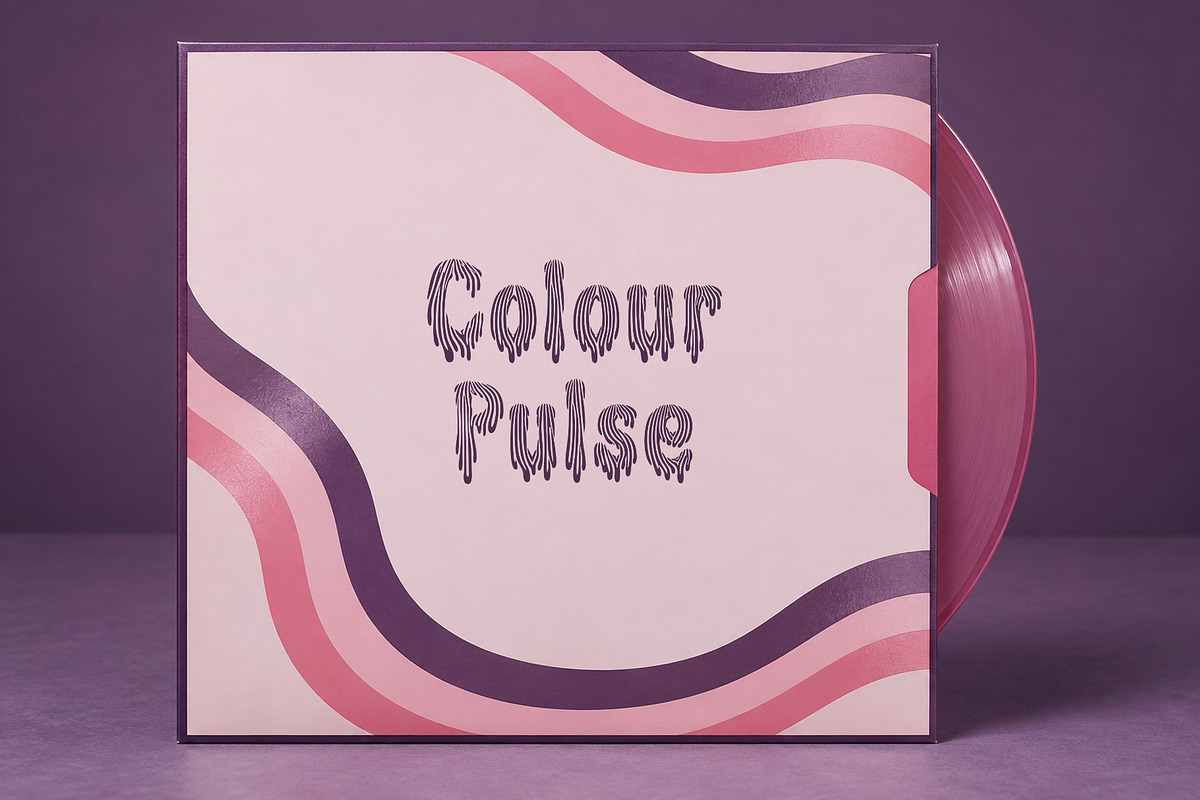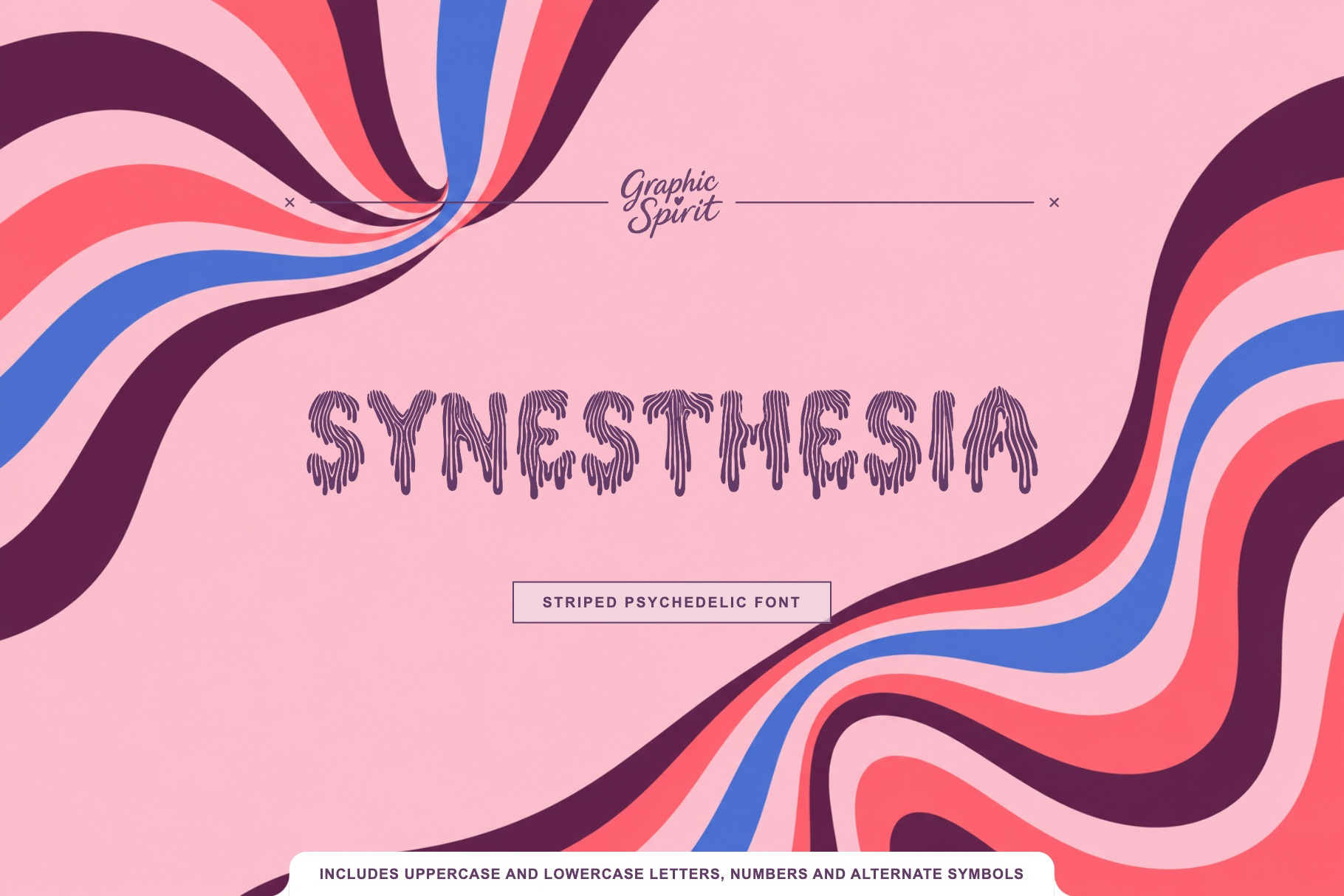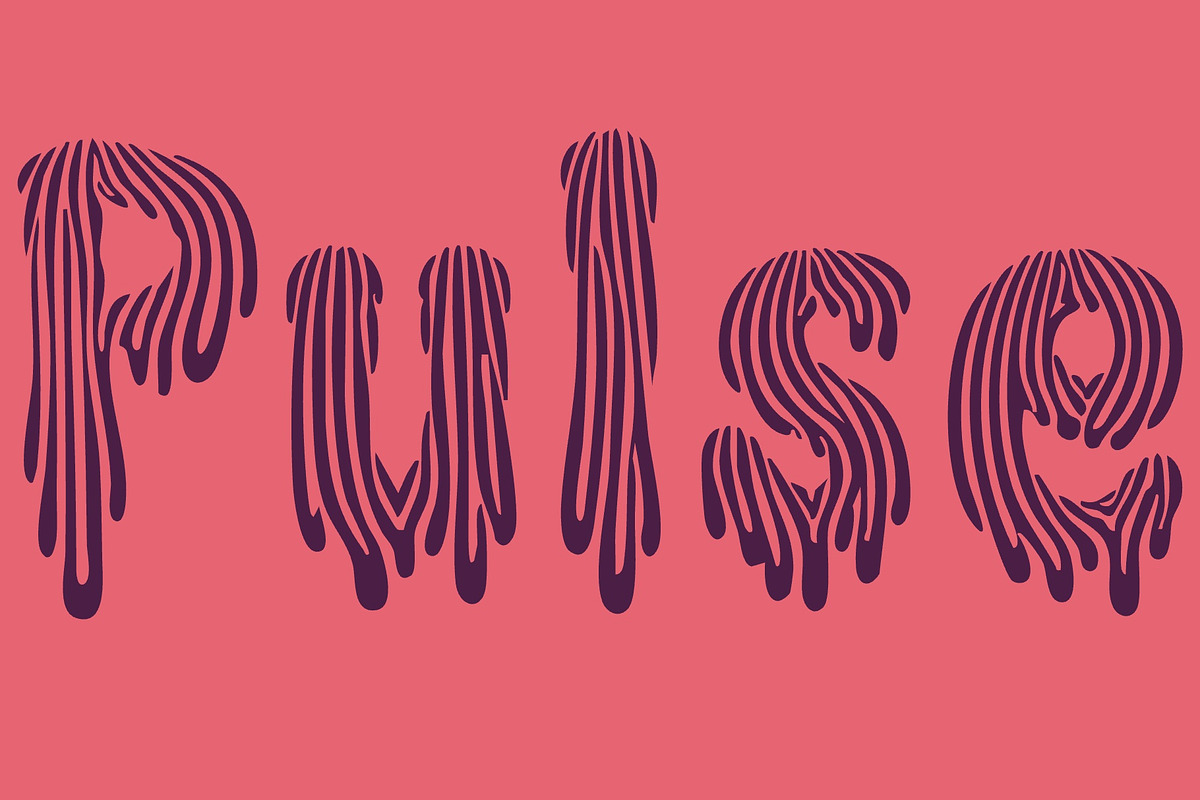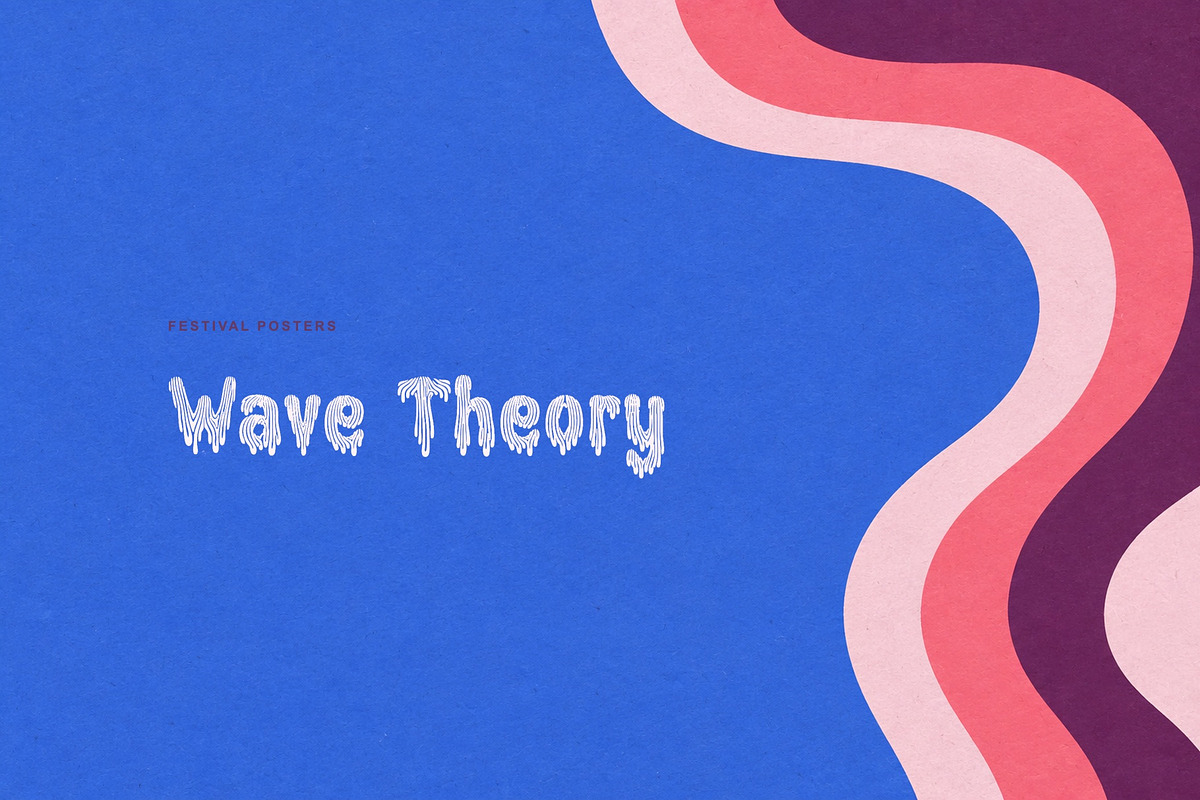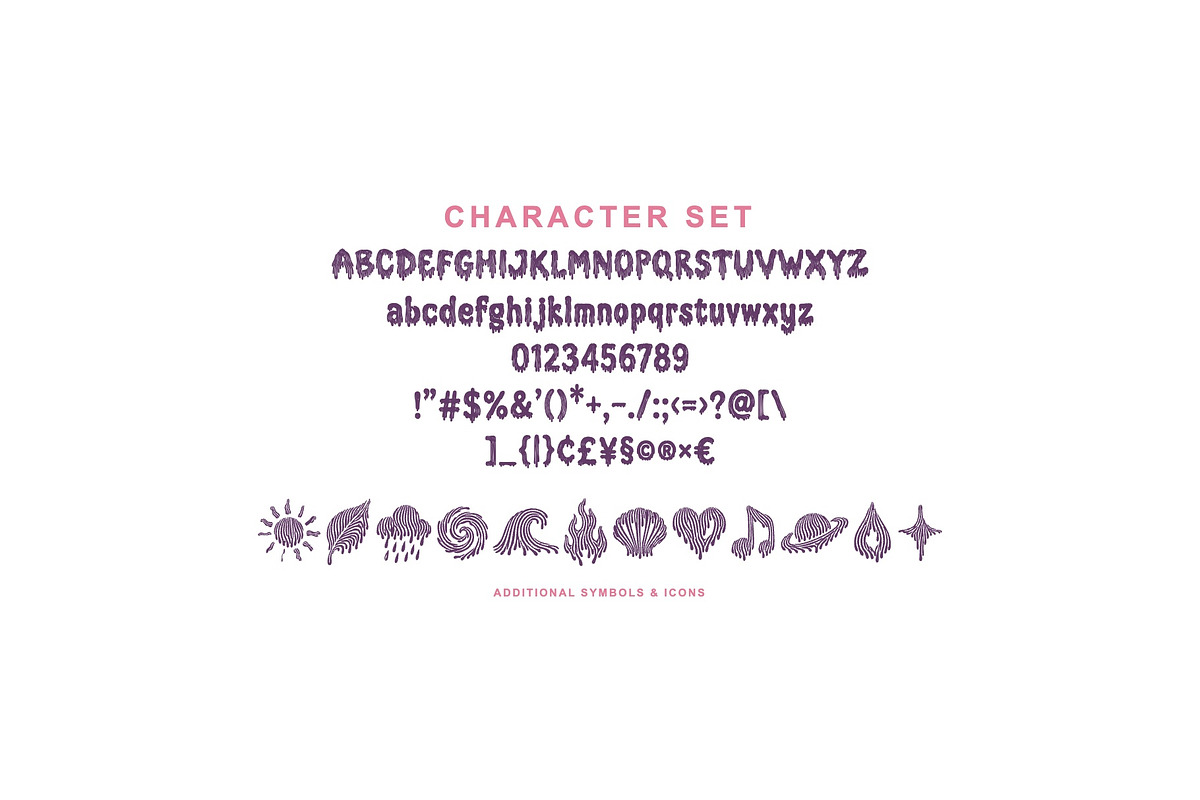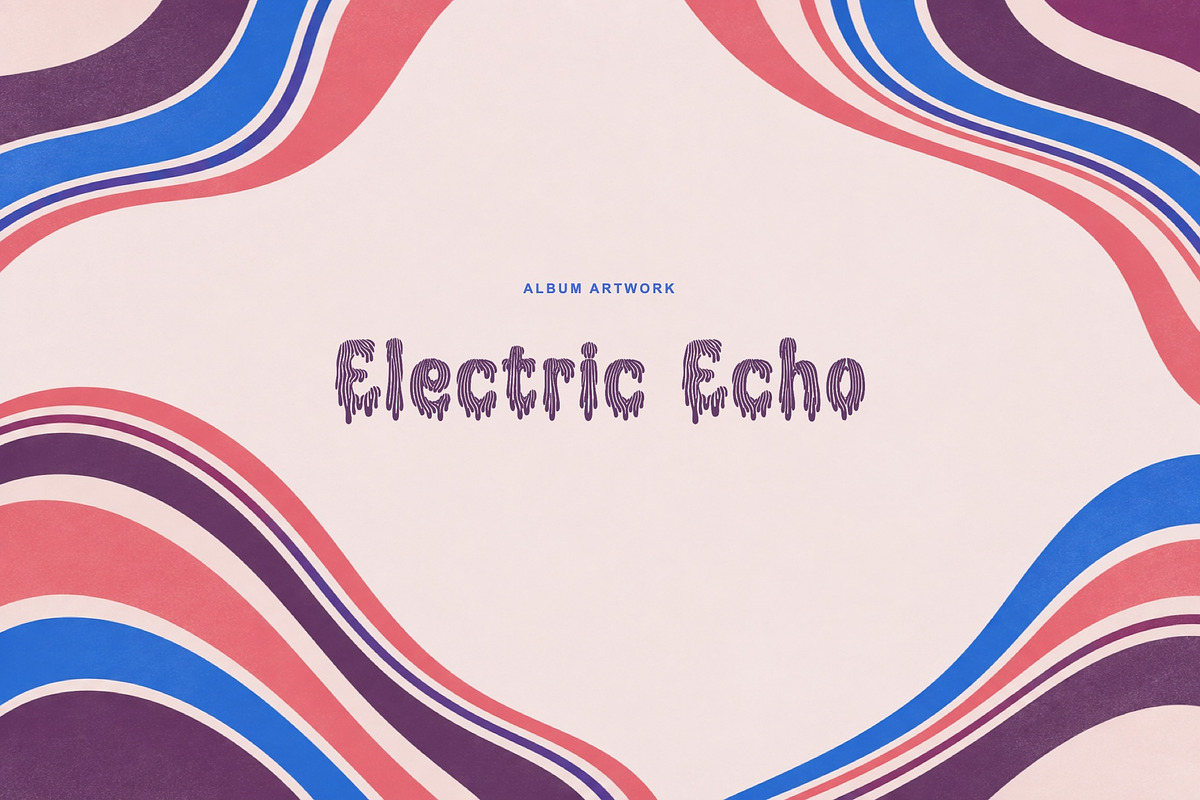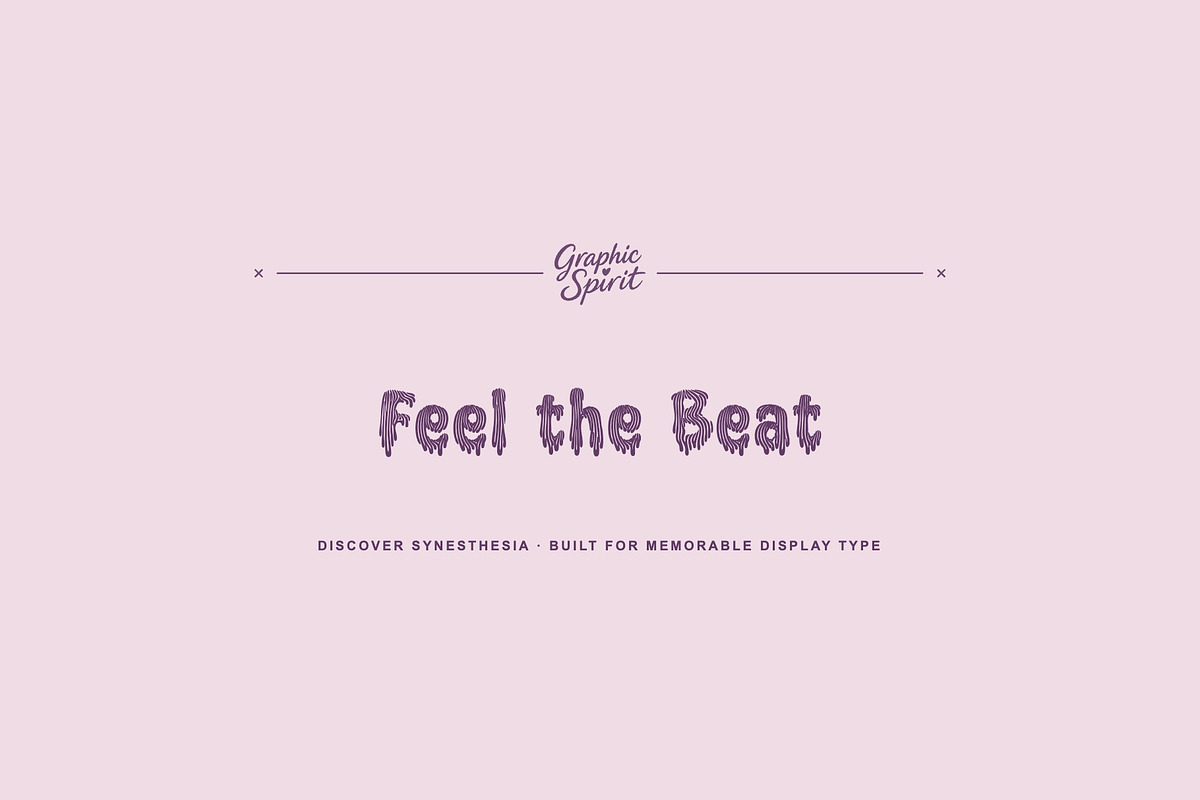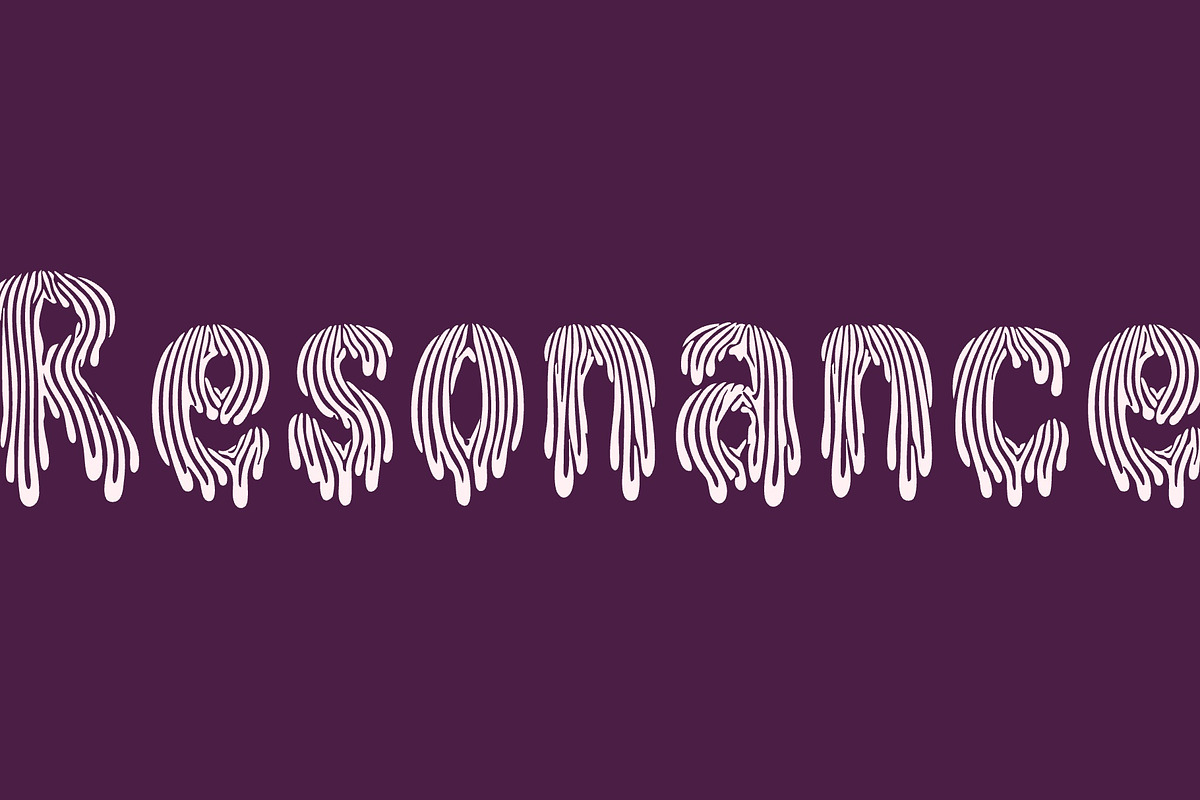
Synesthesia Striped Psychedelic Font
🎵 🌈 🎧 ✨ Synesthesia is a striped psychedelic display shaped by sensory movement and bold music-editorial rhythm. It was created for designers and independent brands looking for expressive display typography that feels specific rather than generic.
🎨 The font works beautifully across album artwork, festival graphics, posters, fashion, music branding. Use it for a confident headline, a memorable product name, or a typographic accent that ties a visual identity together. 💫
🌟 Best for:
- 🎵 Album Artwork
- 🌈 Festival Graphics
- 🎧 Posters
- 🎵 Fashion
- 🌈 Music Branding